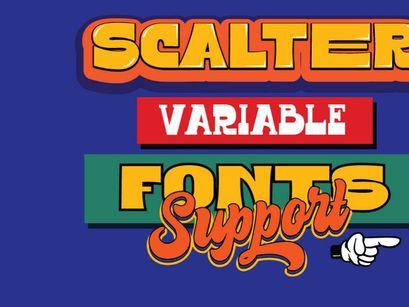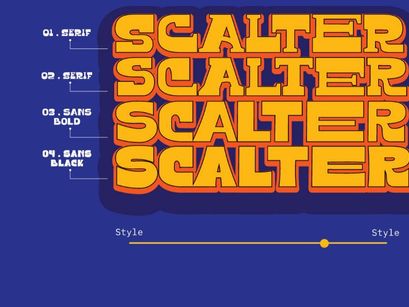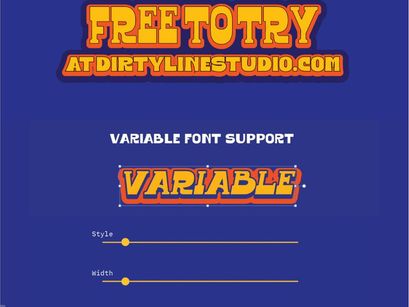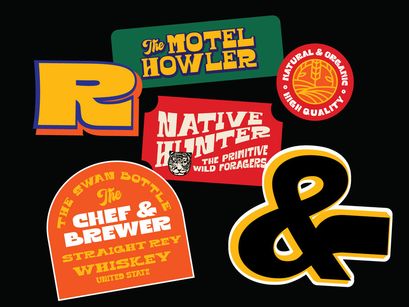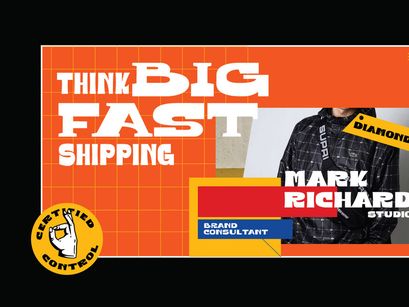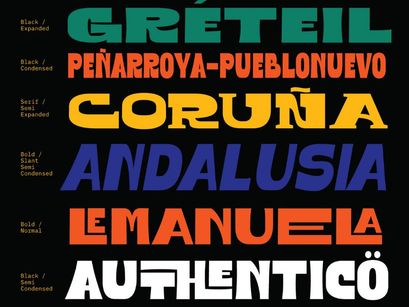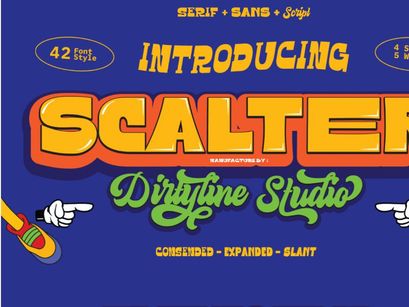
Scalter Typeface
Scalter is a typeface created and designed by hendra dirtyline (https://www.behance.net/hendra_maulia). This font is perfect for logo designs, business cards, name tags, and more! Feel free to download and use this font for your upcoming projects and designs. What are you waiting for? Check it out today!